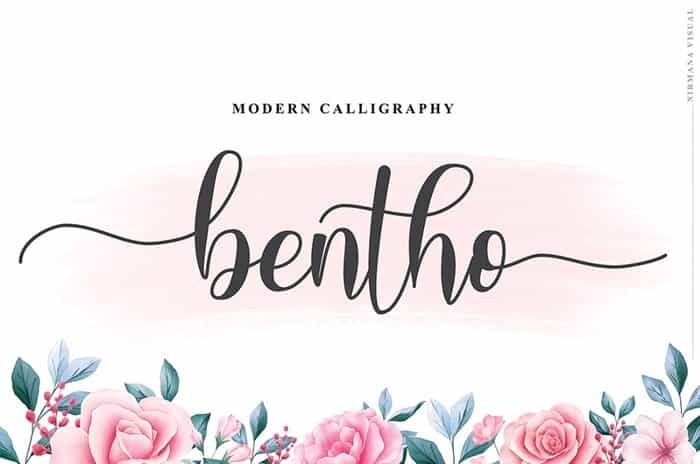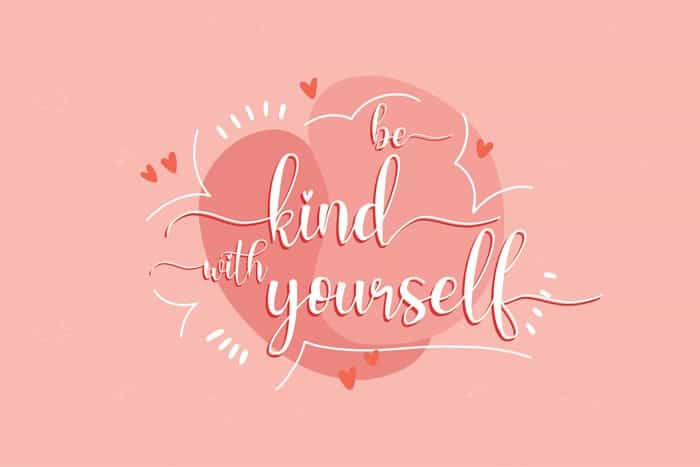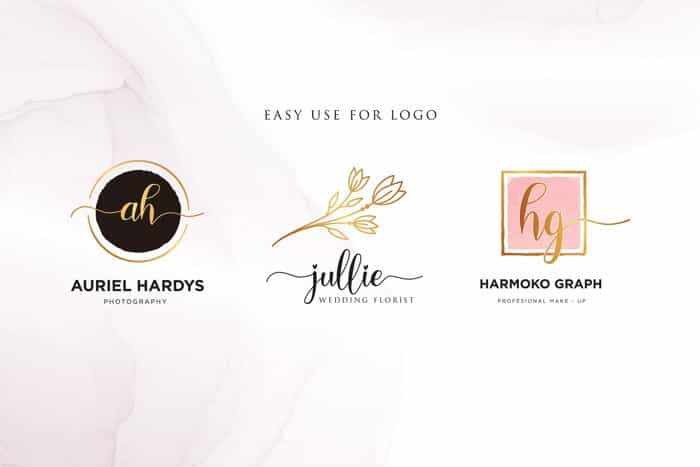
The new Bentho Calligraphy Font is out, and it is so elegant! To those of you who need a bit of elegance and modernity in your designs, this font was made for you! Bentho was designed with OpenType features and it contains the initial and terminal swashes, alternate swash characters for most of the lowercase letters, numbers, punctuation marks, alternates, ligatures and also other languages.